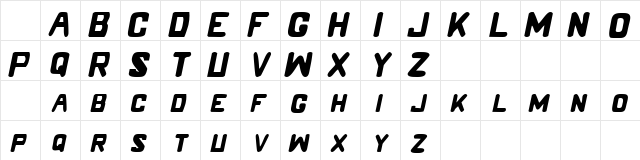
LM Caps Italic Regular
Design Context for LM Caps Italic Typeface
LM Caps Italic is a composed and adaptable typeface that performs quietly and consistently across a wide range of design contexts. Its italic angle brings a sense of urgency and motion to the letterforms.
Pro Tip: Use LM Caps Italic for emphasis, pull quotes, and subheadings where its slanted energy can add rhythm to the layout.